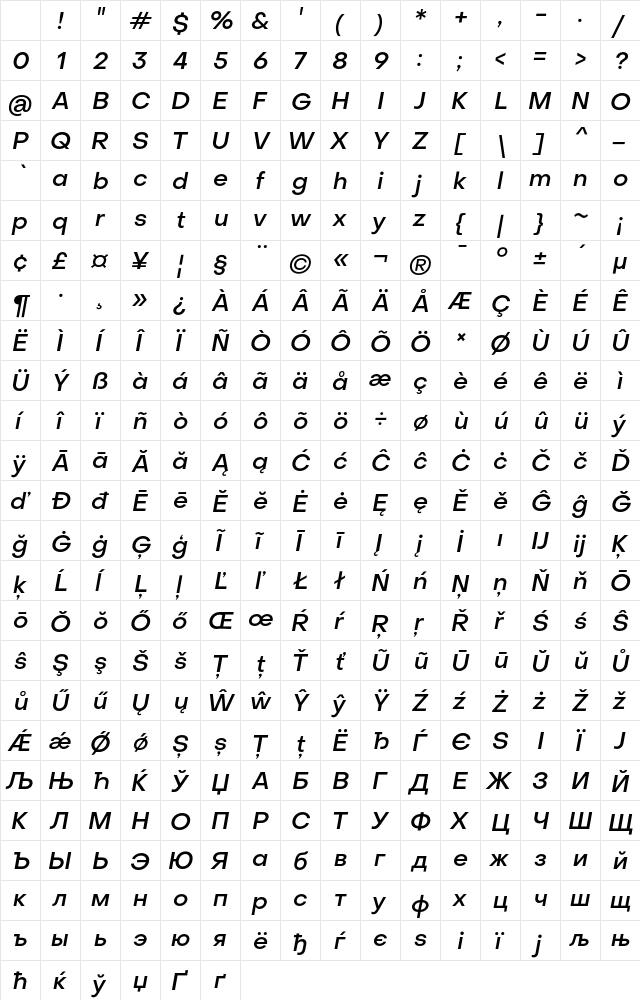
Complete Object Sans Medium Italic glyph index. Displaying only characters natively supported by Object Sans Medium Italic font.
Object Sans Medium is a composed and adaptable typeface that performs quietly and consistently across a wide range of design contexts. The slanted form adds forward momentum and visual energy.
Pro Tip: Use Object Sans Medium for emphasis, pull quotes, and subheadings where its slanted energy can add rhythm to the layout.